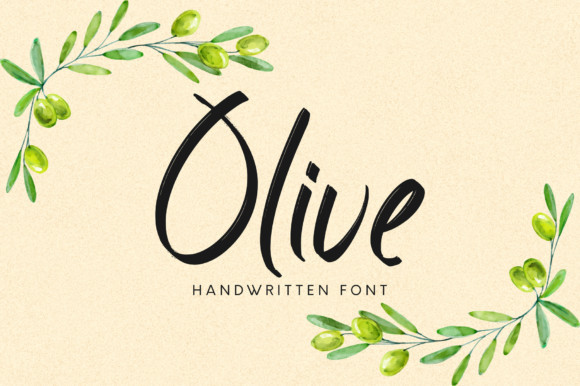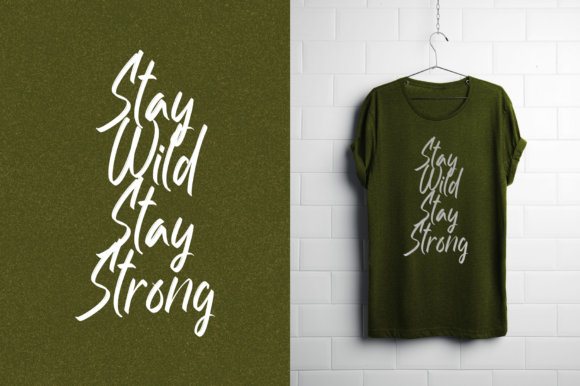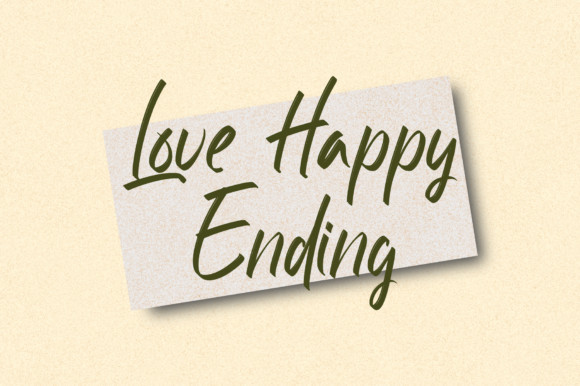
Olive Font
Olive is a friendly and unique script font. Its casual charm makes it appear wonderfully down-to-earth, readable and, ultimately, incredibly versatile.